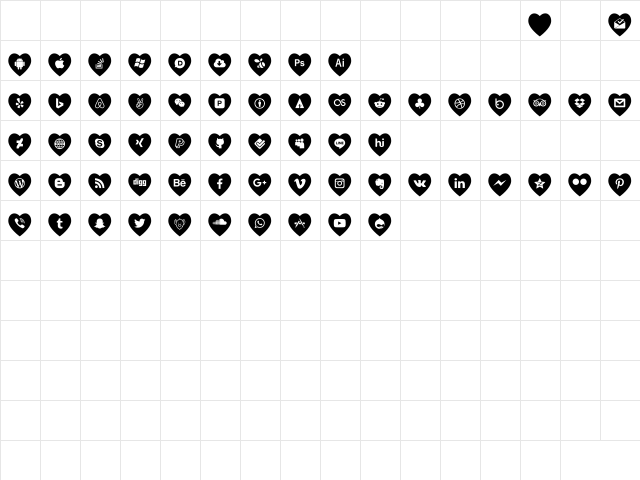
love social media Regular Font Preview
love social media Regular
love social media Regular Font Details
Design Context for love social media Typeface
love social media is a composed and adaptable typeface that performs quietly and consistently across a wide range of design contexts.
Pro Tip: Pair love social media with a font of contrasting weight or personality to build a more expressive typographic hierarchy.